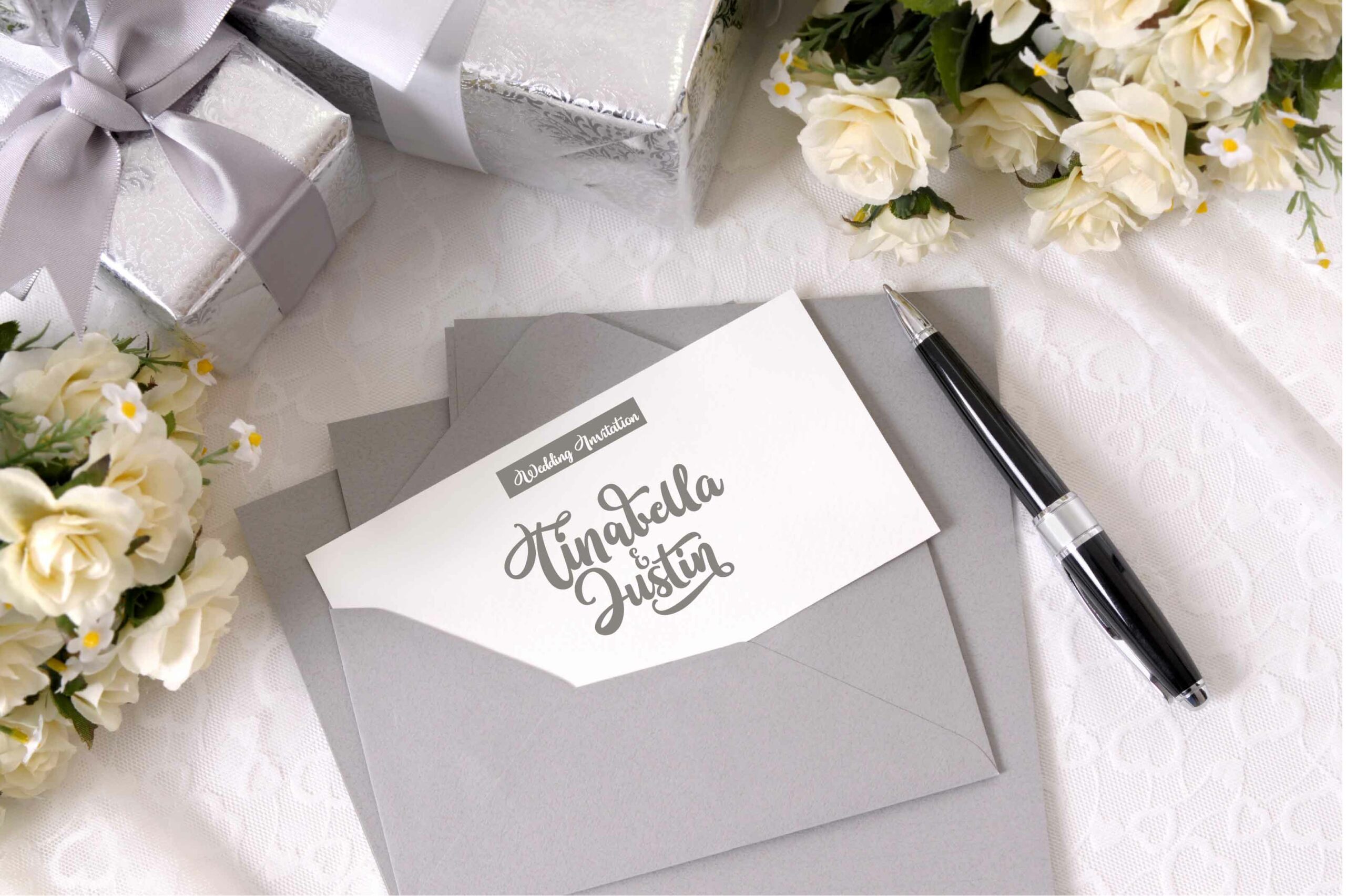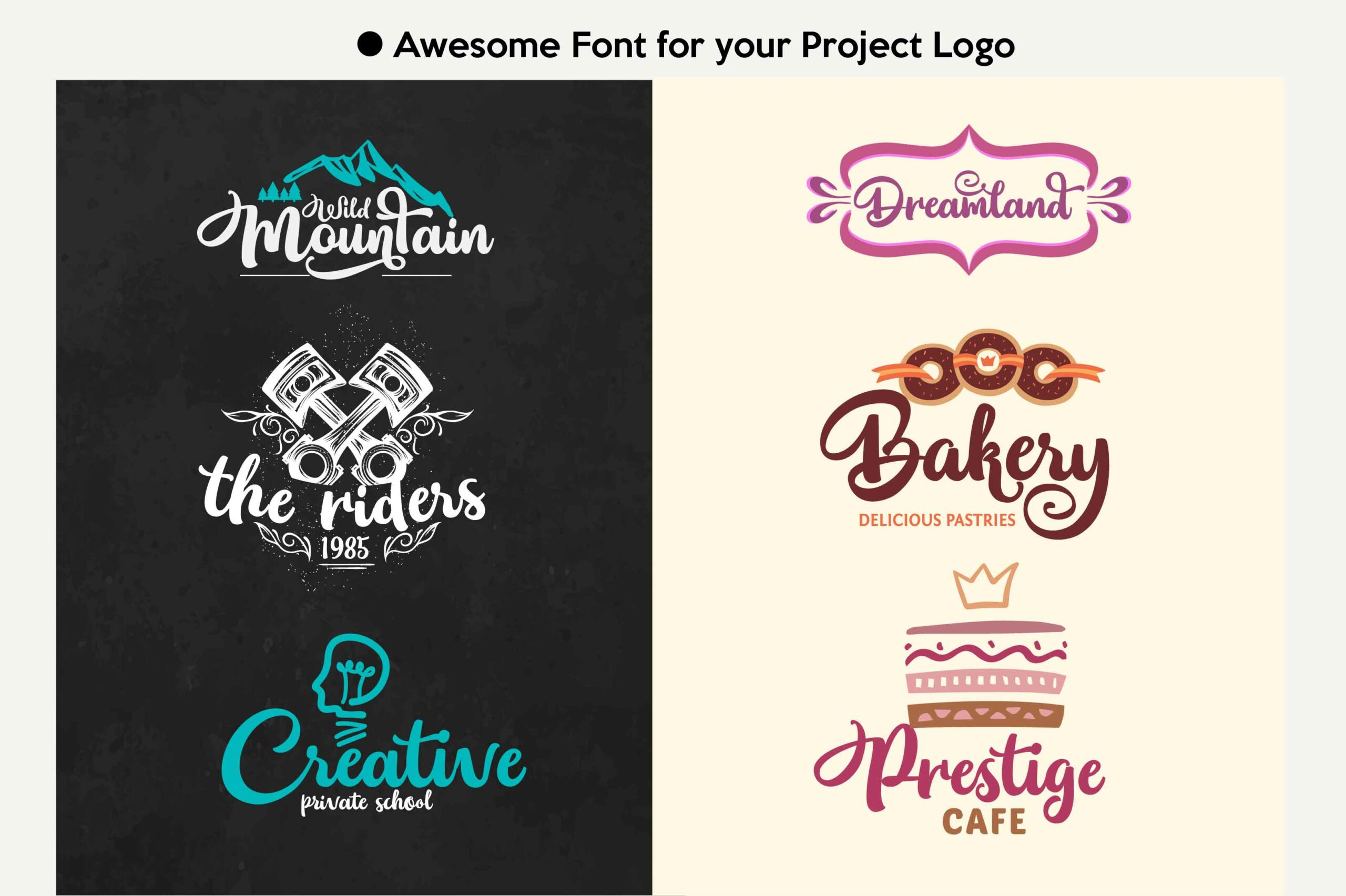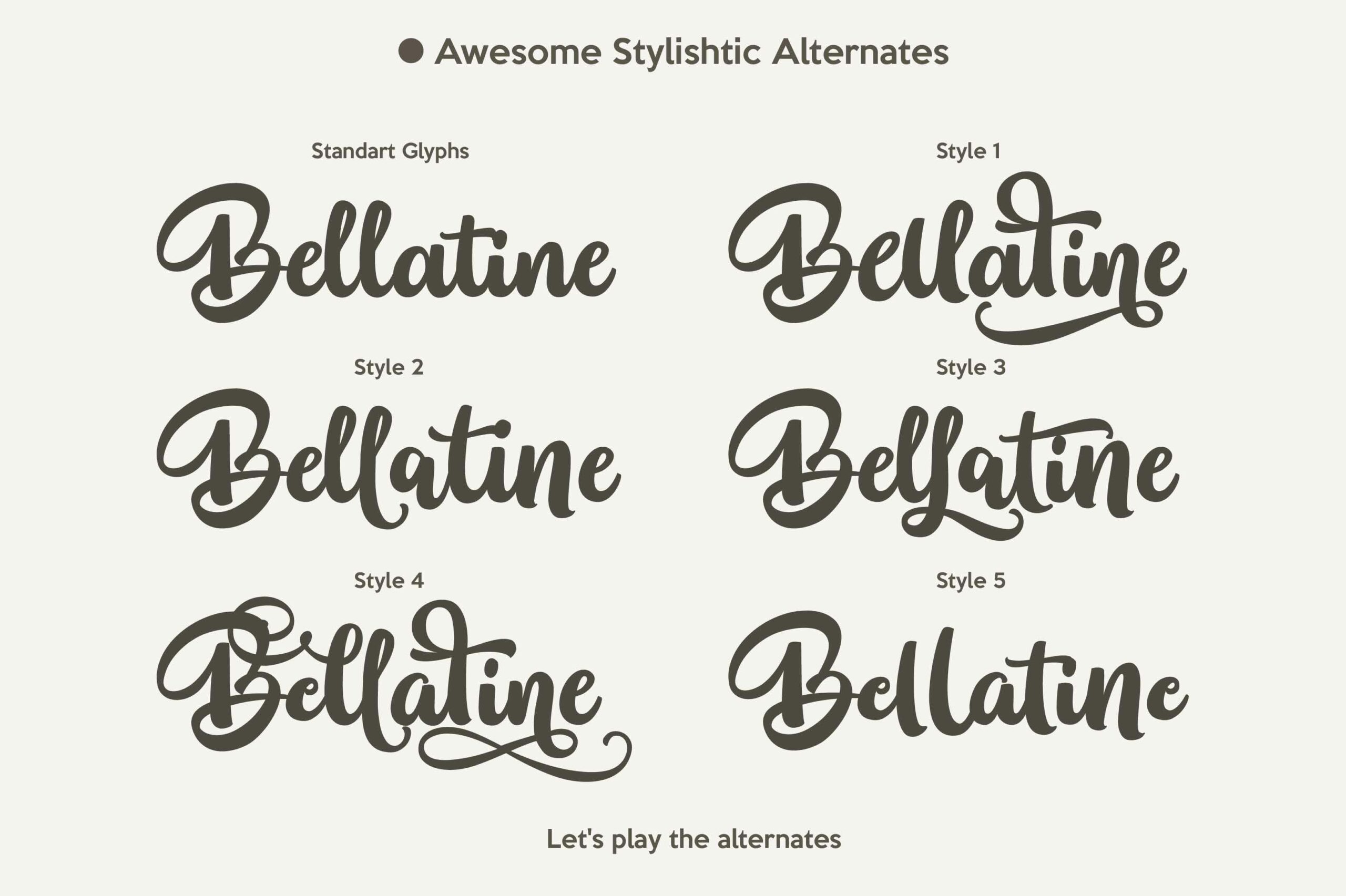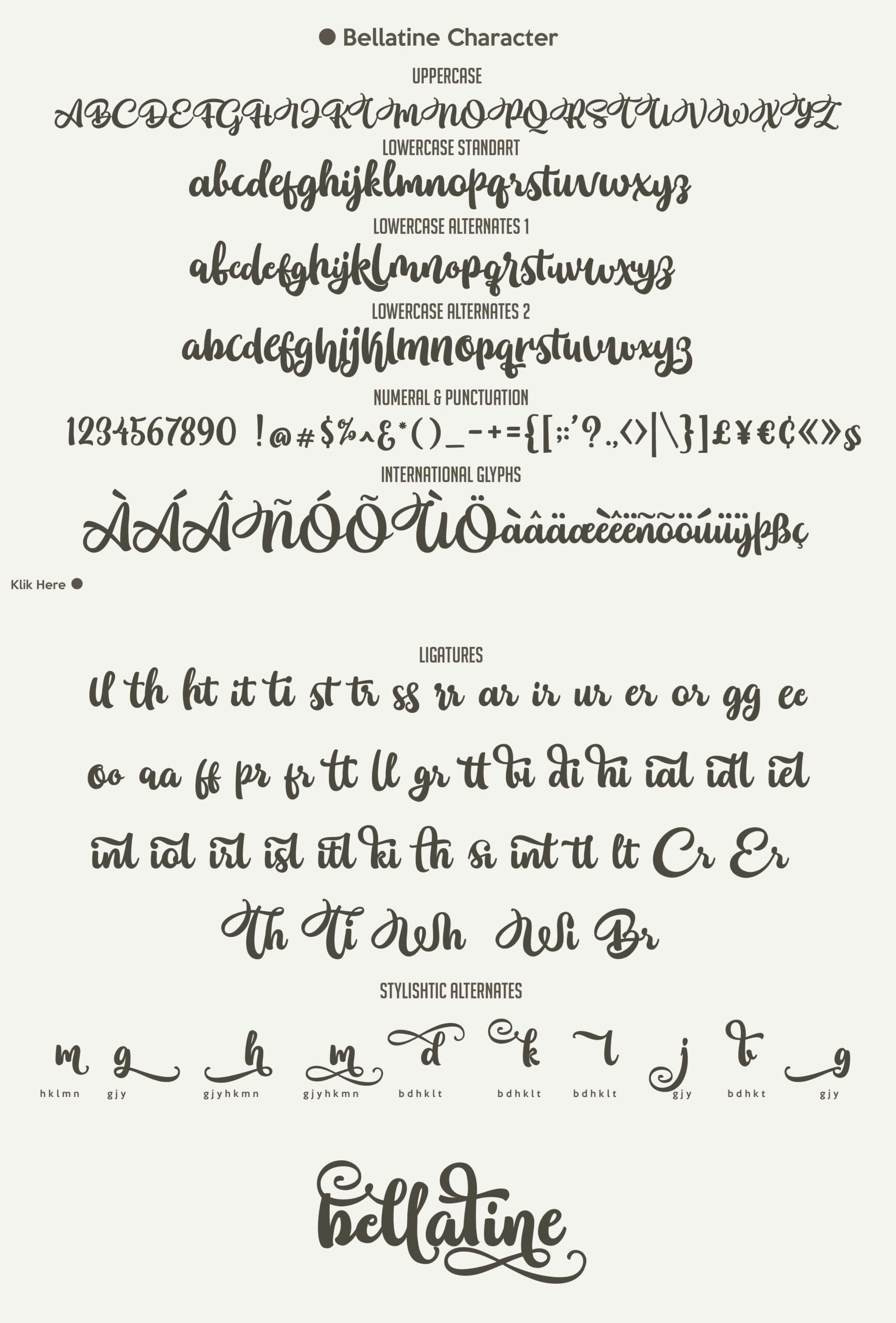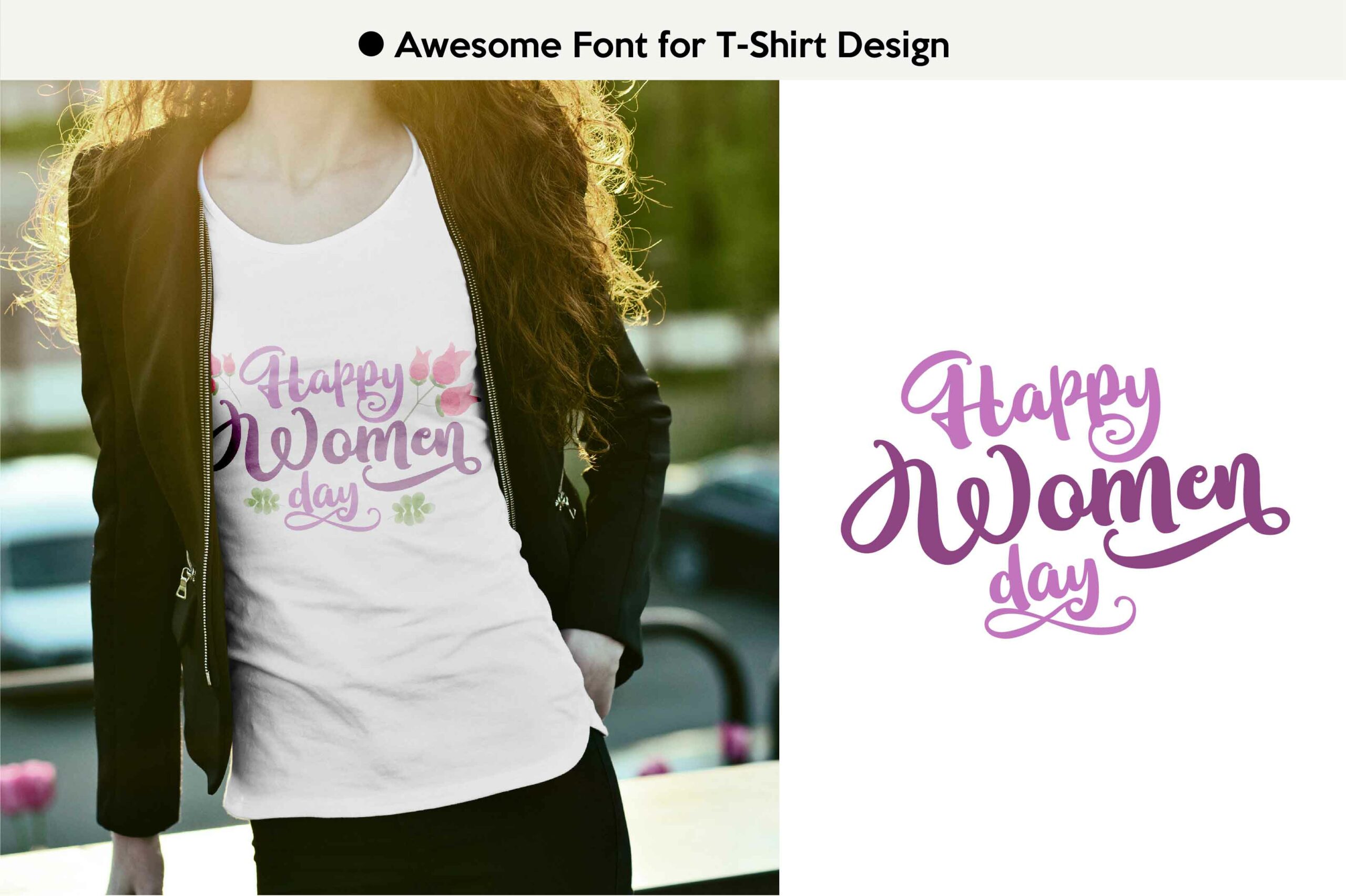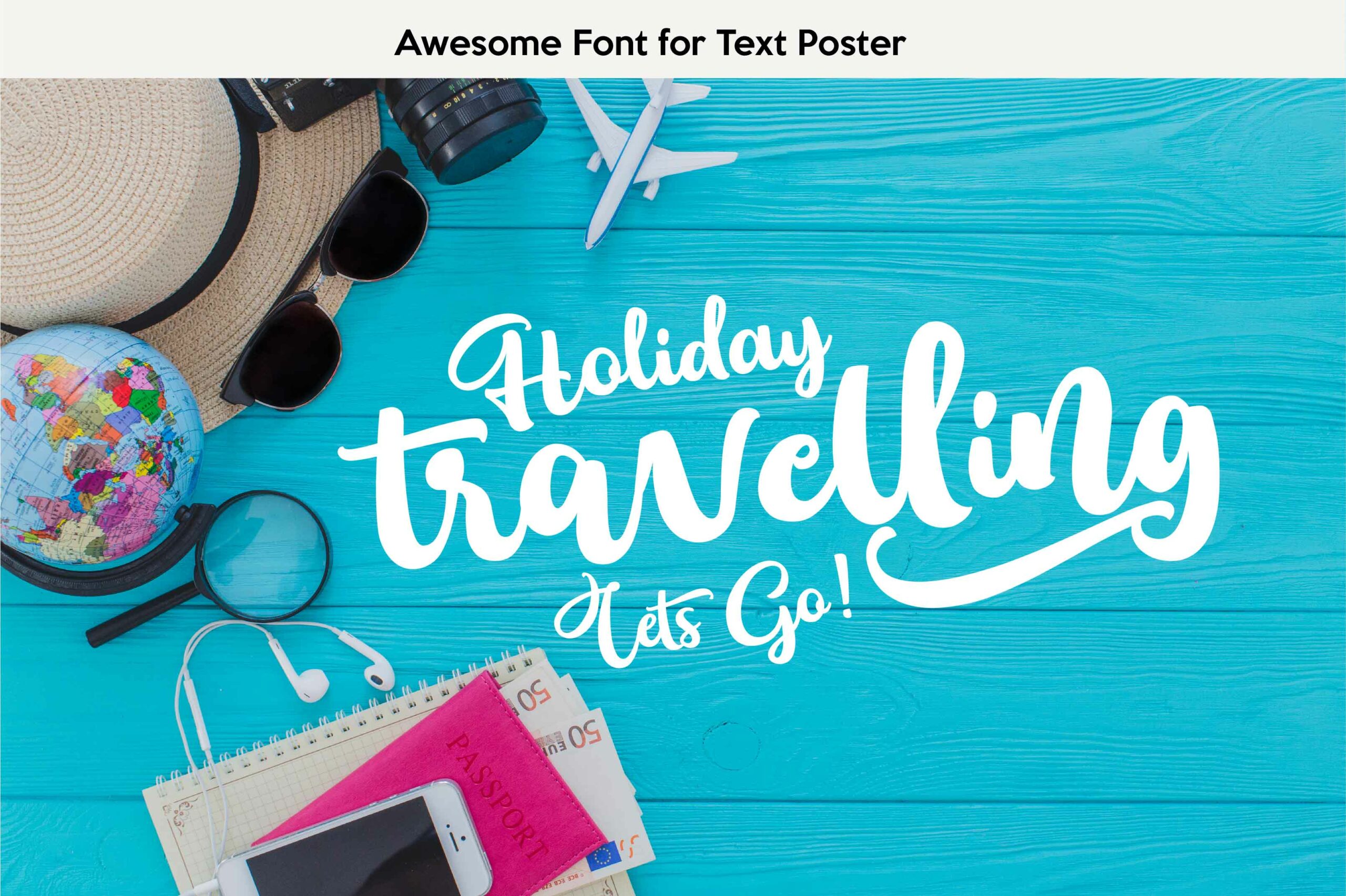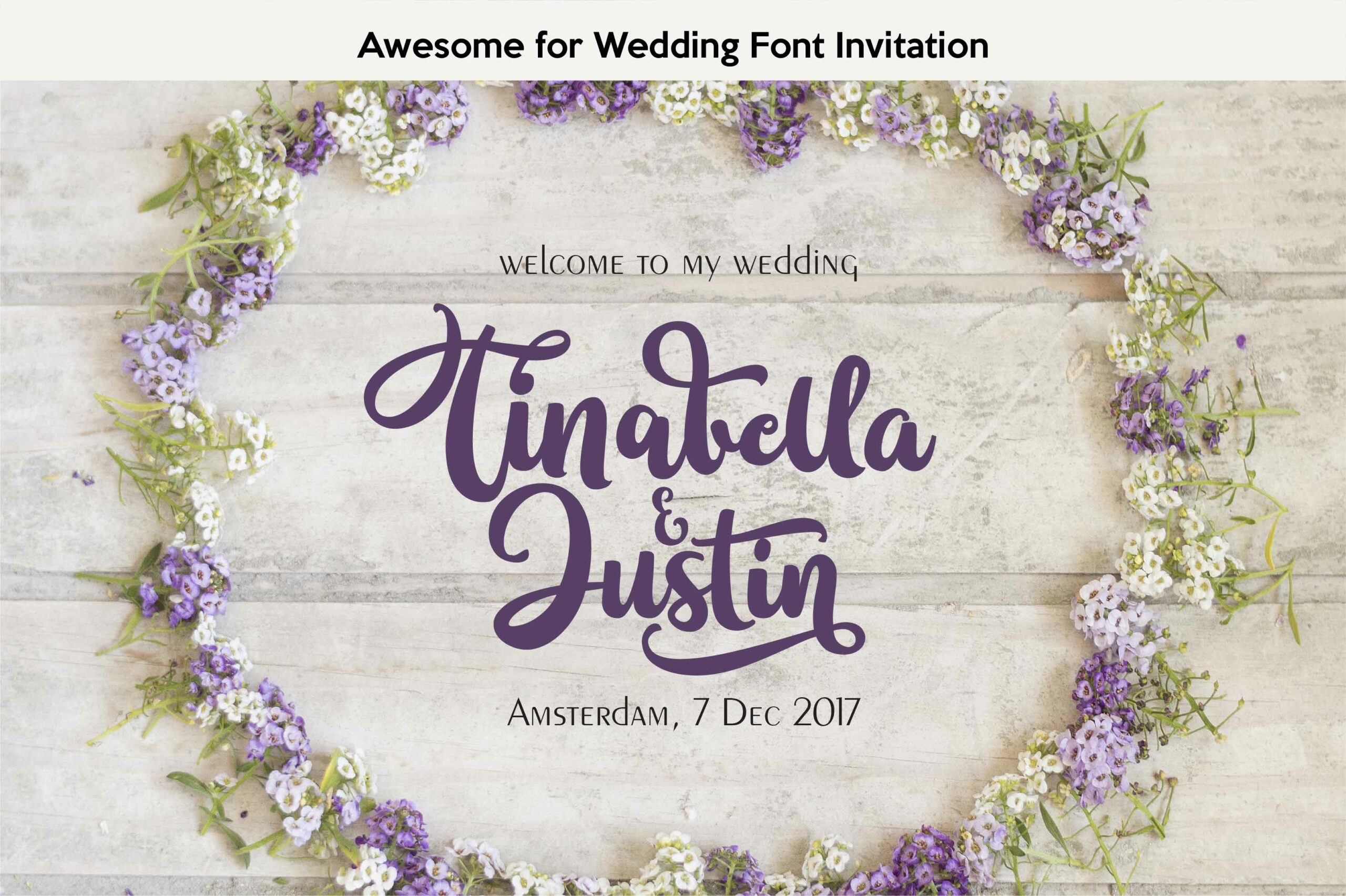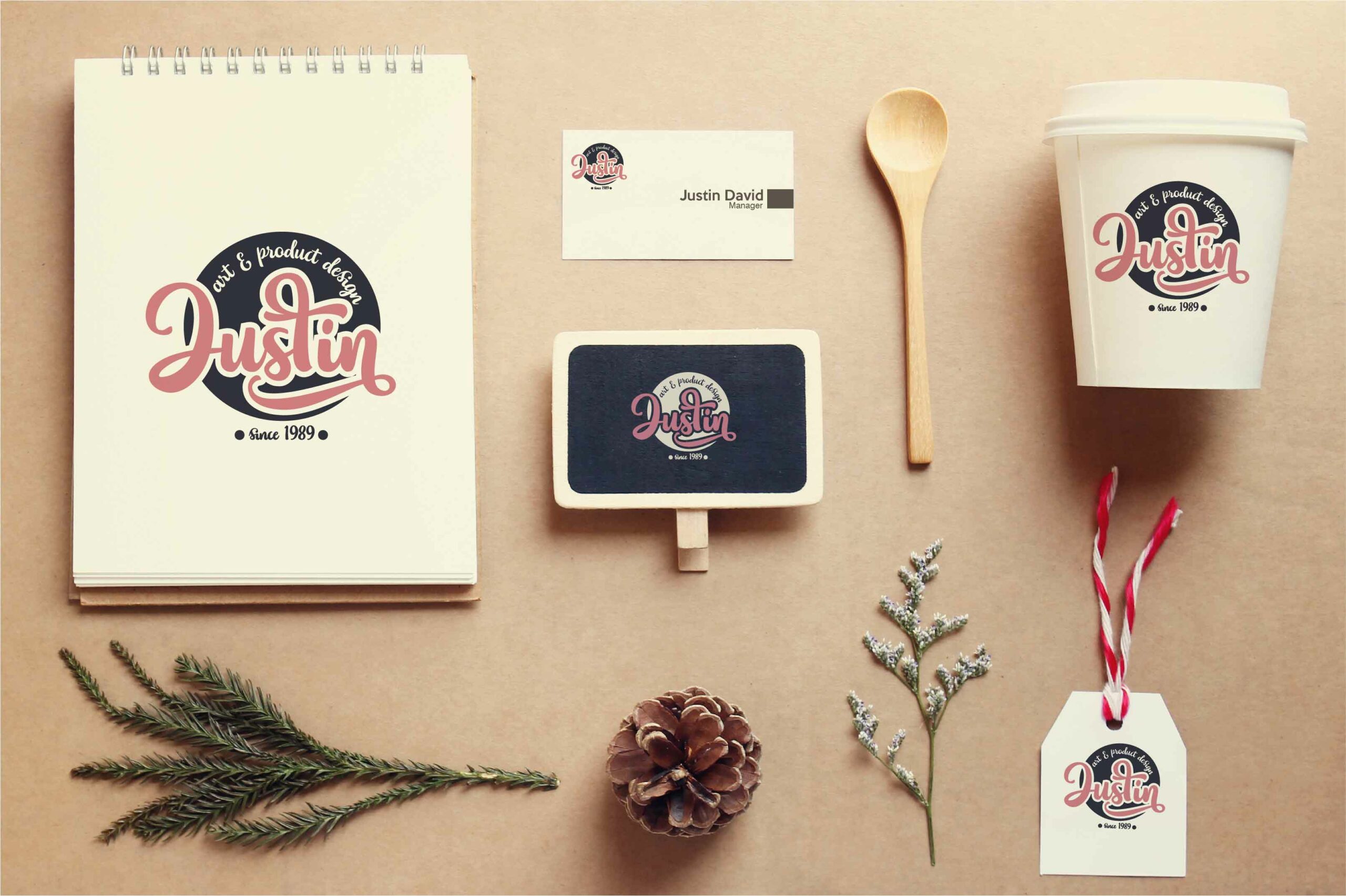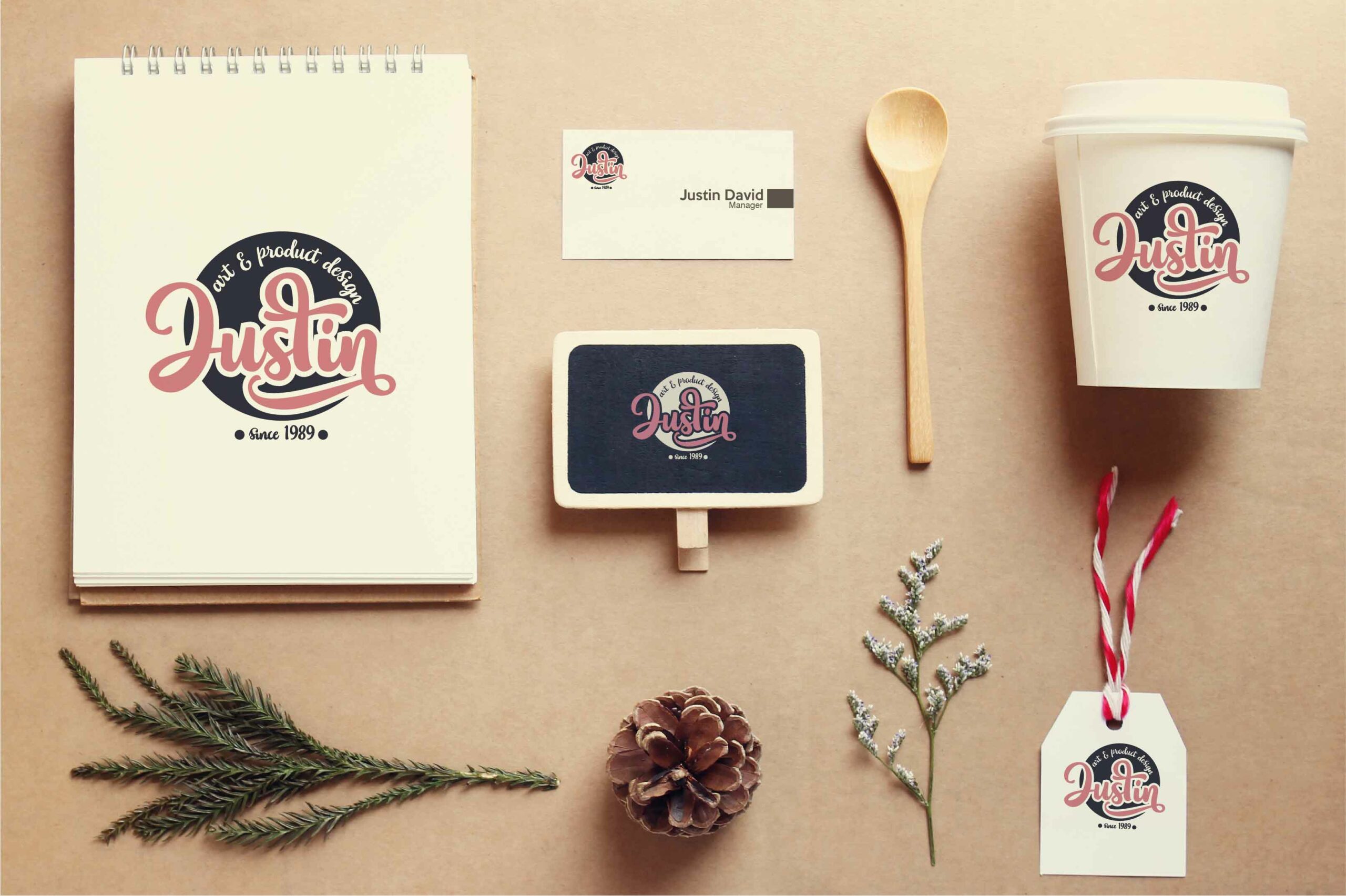
HomeScript FontsBellatine Font Script Fonts Bellatine Font FacebookXPinterestWhatsApp Bellatine Font Poster 2 Bellatine Font Poster 3 Bellatine Font Poster 4 Bellatine Font Poster 5 Bellatine Font Poster 6 Bellatine Font Poster 7 Bellatine Font Poster 8 Bellatine Font Poster 9 Bellatine Font Poster 10 About Bellatine Font Bellatine, a bold & strong handwritten font. It features strong smooth letters. DOWNLOAD ON CREATIVE FABRICAThis font is sold and delivered by Creative Fabrica. Font Canyon may earn a commission if you buy through this link. People also explored Graton Font Stevania Font Verdure Font Romilly Font July Seventh Italic Font Mognus Font Candy Cake Font Gosten Font Mounthana Font 296 0 TagsBellatine Font Previous articleBethanya FontNext articleMattheo Font LEAVE A REPLY Cancel reply Comment: Please enter your comment! Name:* Please enter your name here Email:* You have entered an incorrect email address! Please enter your email address here Website: Save my name, email, and website in this browser for the next time I comment. Personal Use Free Alnair Star Personal Use Free Read more about this font Bajt Rounded Personal Use Free Read more about this font Pumpkin Type Halloween Font Personal Use Free Read more about this font Unicorn Kids Personal Use Free Read more about this font BLOG Top 10 Handwritten Fonts That Elevate Your Designs Top 10 Handwritten Fonts That Will Elevate Your Designs Handwritten fonts bring a warm, personal touch to every creative project. Whether you're designing logos, invitations,... Top 7 Google Fonts Alternatives for Faster and Privacy-Friendly Web Design (2025) How to Cut Any Font on Cricut: Convert a Font to SVG (Free) The 10 Best Handwriting Fonts to Add Personality to Your Designs